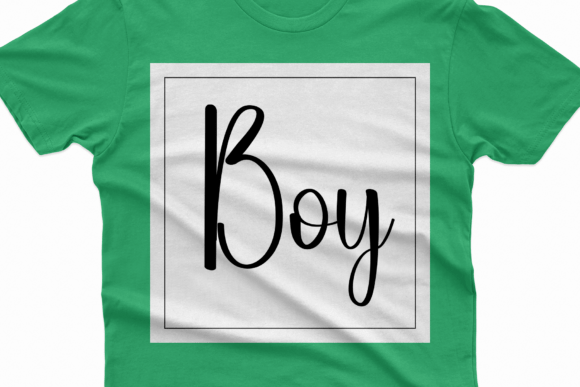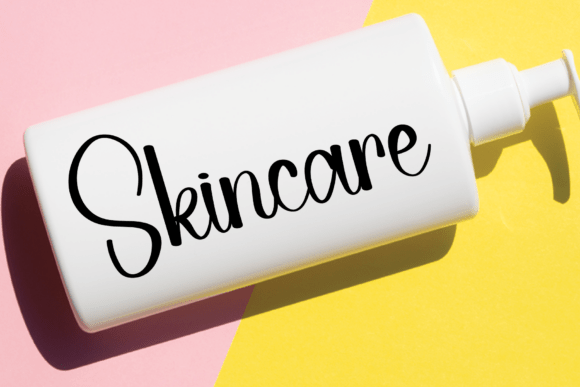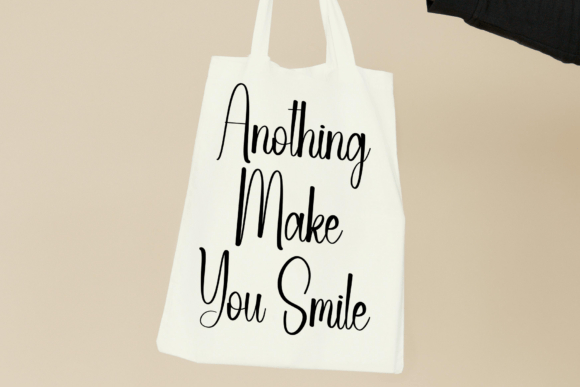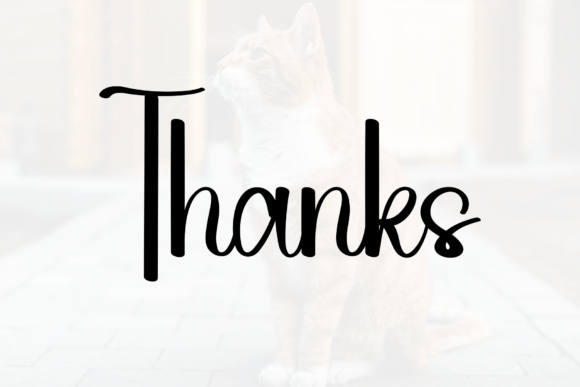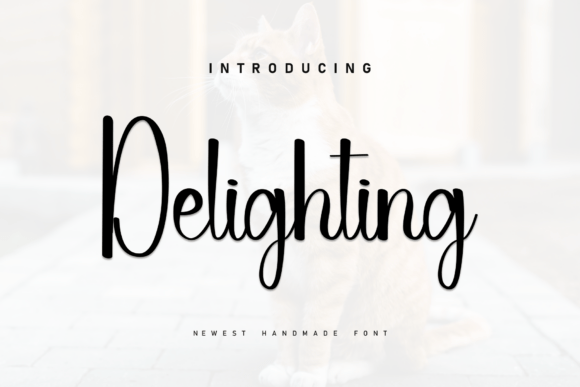
The Delightful World of Handwritten Fonts: A Deep Dive into Delighting Font
I’ll never forget the time I was working on a project for a cozy little café, trying to find the perfect font to capture their warm and inviting atmosphere. I scrolled through page after page of Google Fonts, but nothing seemed quite right. That was until I stumbled upon Delighting Font – a sweet and beautiful handwritten font that instantly transported me to a world of rustic charm and whimsy. In this article, we’ll explore what makes Delighting Font so special, its features, and how to make the most of it in your design projects.
A First Impression: What Makes Delighting Font So Special?
Delighting Font is a true gem, featuring characters that dance along the baseline with a carefree elegance. This beautiful handwritten font is perfect for adding a cozy accent to any design project, from branding and packaging to invitations and social media graphics. Its unique charm lies in its ability to evoke a sense of warmth and approachability, making it an excellent choice for designers, crafters, and creative hobbyists alike.
What I Love About Delighting Font ✨
- 💫 Unique, hand-crafted feel that adds a personal touch to any design
- ✅ Excellent for branding, packaging, and marketing materials that require a touch of elegance
- 🎉 Works beautifully with OpenType features, glyphs, and stylistic alternates
- 📚 Extensive character set, including support for multiple languages
- ⚠️ Some characters may require manual kerning for optimal spacing
- ⚠️ Limited availability of condensed or expanded styles
A Practical Guide: Using Delighting Font in Your Design Projects
The Story Behind Delighting Font: A Designer Inspiration
Delighting Font was created with the intention of capturing the whimsical, hand-crafted feel of traditional handwritten fonts. Its designer, inspired by the rustic charm of rural landscapes and the elegance of handwritten letters, set out to create a font that would bring a touch of warmth and personality to any design project. With Delighting Font, you can add a dash of coziness and elegance to your designs, making it perfect for a wide range of creative projects.
Q: What type of projects is Delighting Font best suited for?
A: Delighting Font is versatile and can be used for a variety of projects, including branding, packaging, invitations, social media graphics, and more.
Q: Does Delighting Font support OpenType features?
A: Yes, Delighting Font supports OpenType features, including glyphs, stylistic alternates, and ligatures.